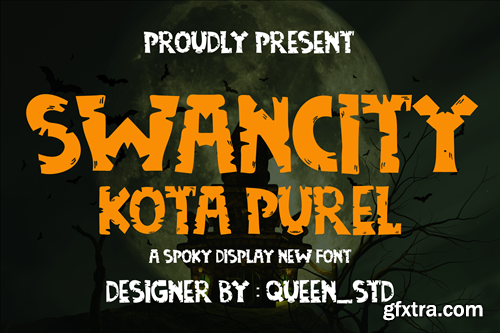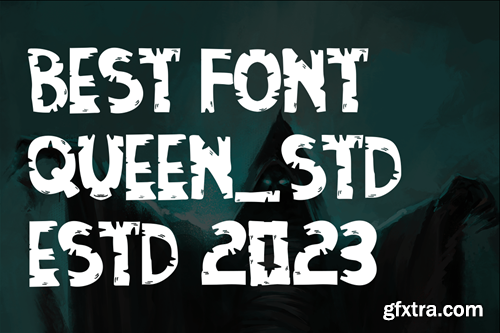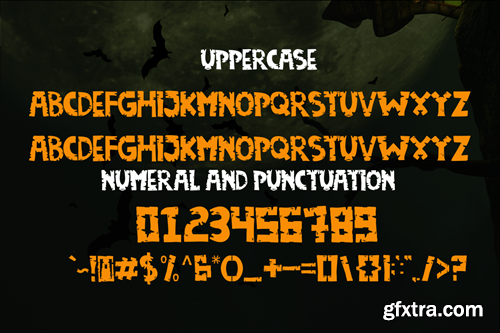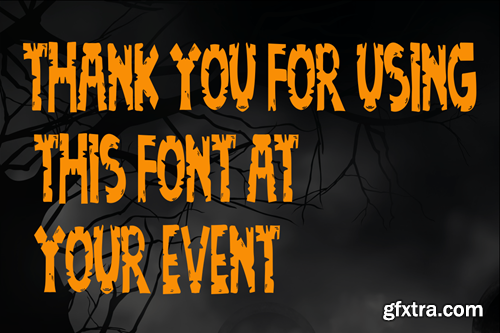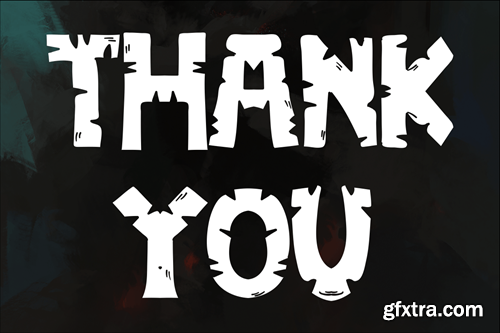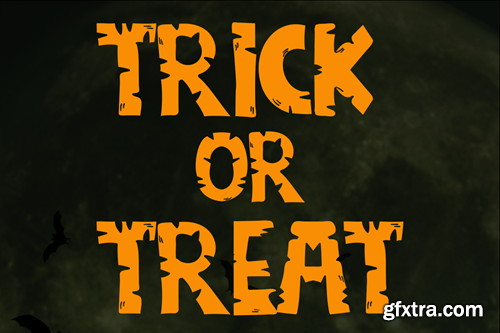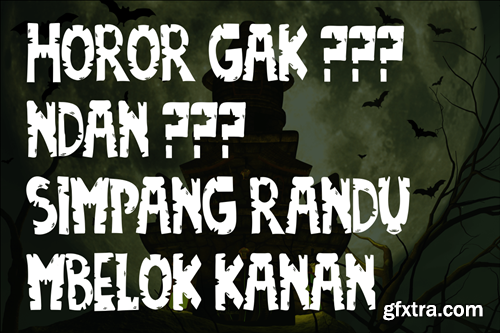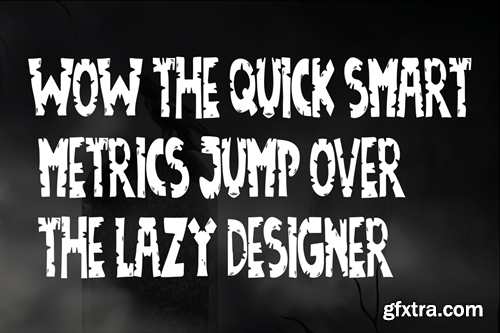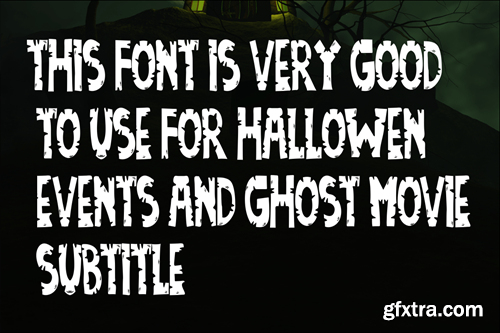
Swancity Kota Purel - decorative Font
Proudly present our new product **Swancity Kotapurel Font is a modern and authentic font. Perfect for both professional and branding needs of a product. This font is suitable for any branding project like quotes, logo, blog header, poster, banding, letter, invitation, stationery, etc... Designed as a versatile and flexible that can be used on a range of projects and mediums. outstanding in a wide range of contexts. Availlable -Otf -Ttf -Woff -Uppercase -Lowercase If you have any queries, questions or issues please don't hesitate to contact us direct. Display and cover image Not include